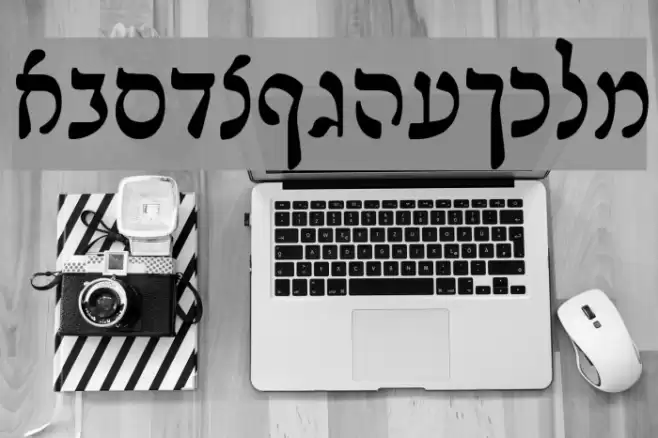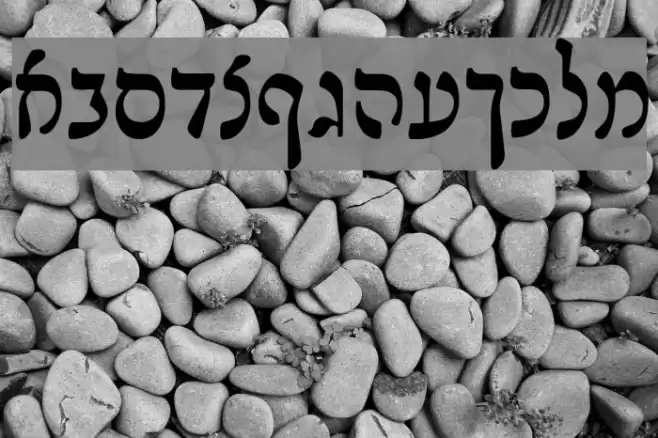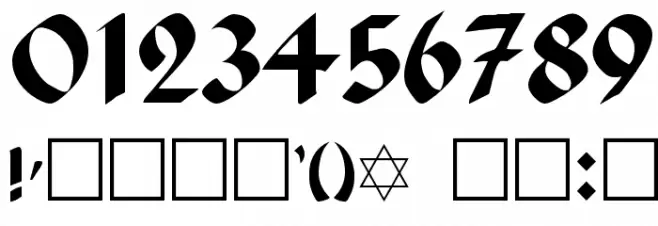
Lashon Tov Font
Lashon Tov Description
This font features a unique and decorative style, characterized by its bold and striking appearance. The characters exhibit a blend of traditional and modern elements, with sharp angles and distinct serifs that add a touch of elegance. The numbers and special characters maintain the same boldness, ensuring consistency across all elements. The font's design is reminiscent of historical scripts, yet it incorporates contemporary flair, making it suitable for a variety of creative projects.
A bold, decorative font with a blend of traditional and modern elements from Uncategorized fonts.